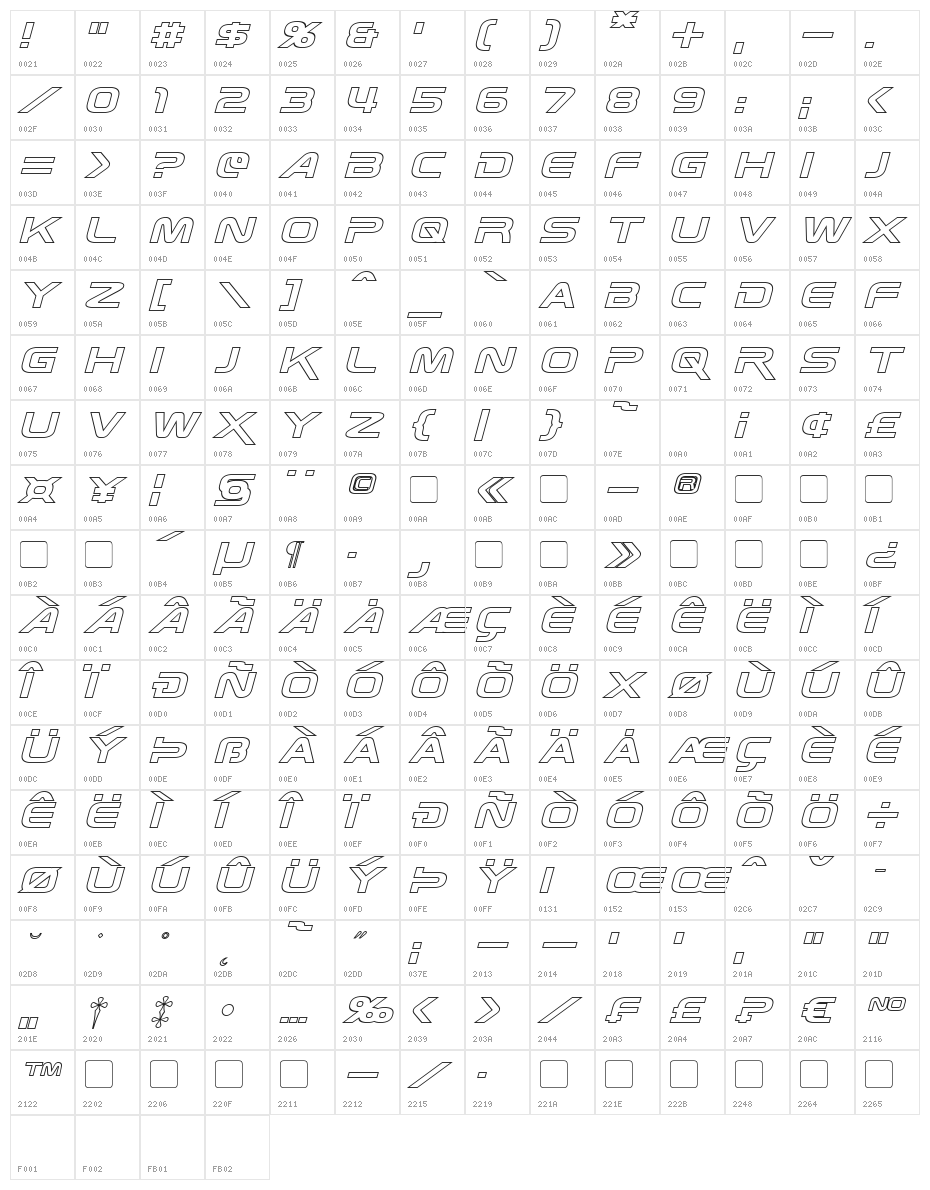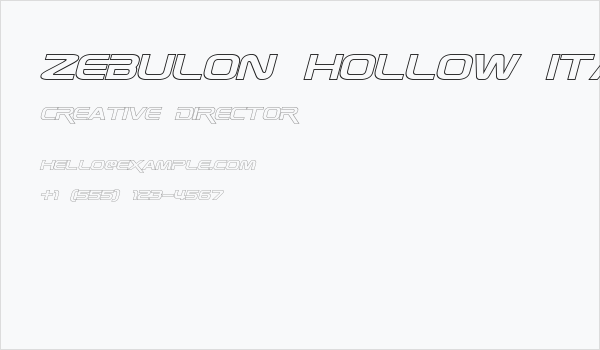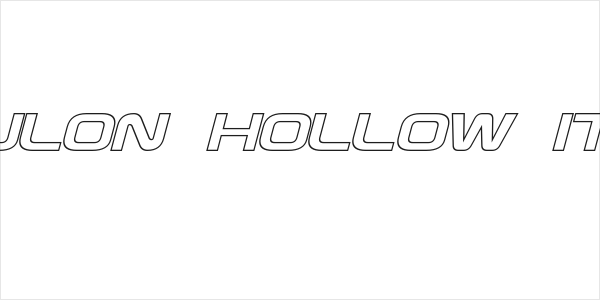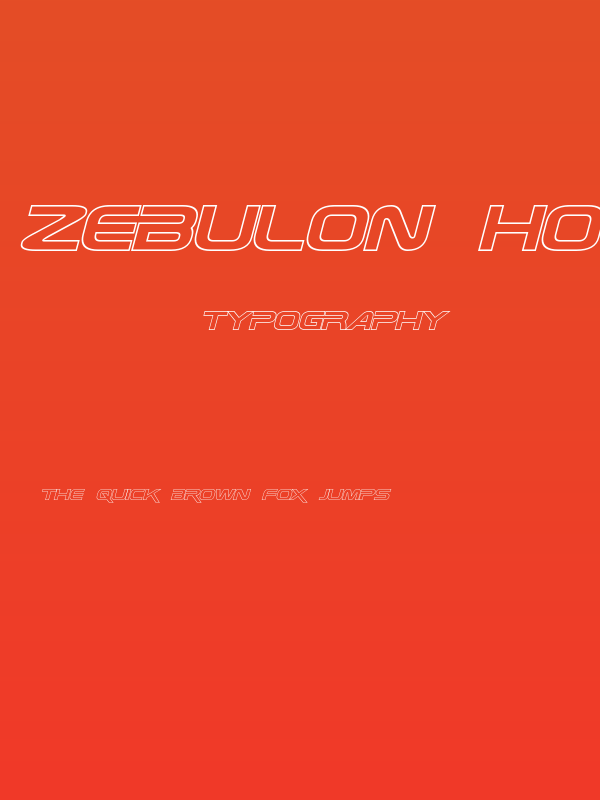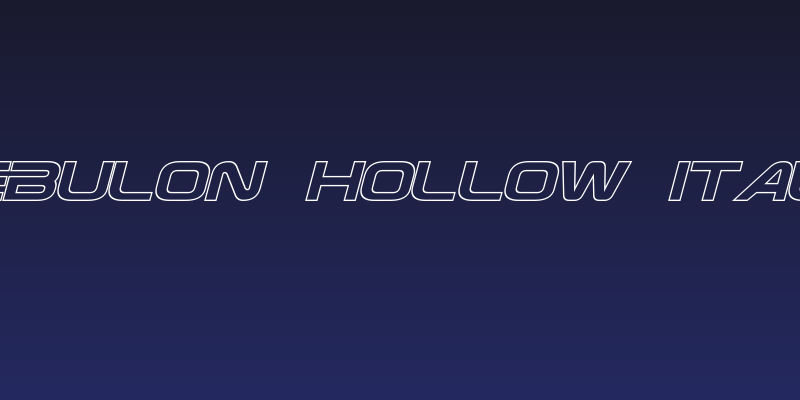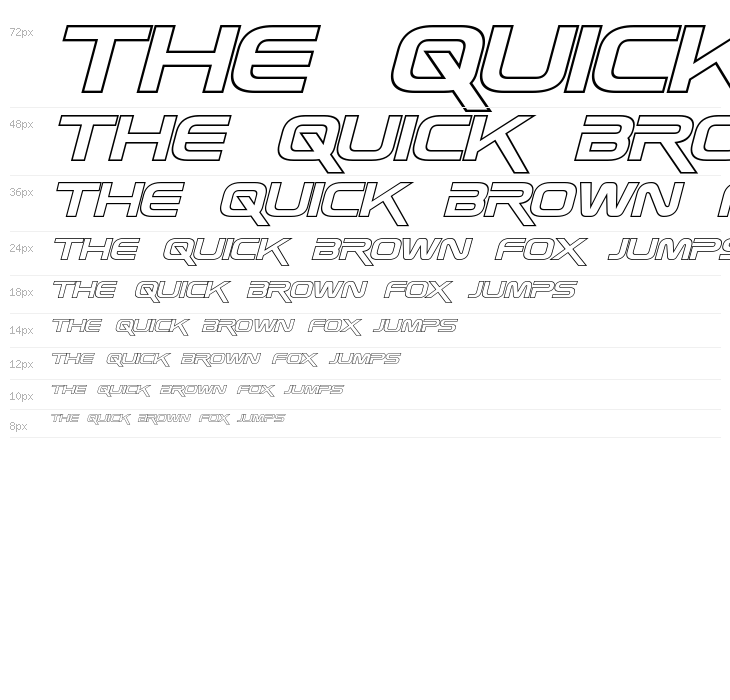
Zebulon Hollow Italic Font
Zebulon Hollow Italic Description
This font features a futuristic and dynamic design with hollow characters that give it a unique, airy appearance. The italicized style adds a sense of motion and speed, making it ideal for projects that require a modern and energetic look. The characters are well-defined with sharp angles and clean lines, contributing to its sleek and contemporary aesthetic. The uppercase and lowercase letters maintain a consistent style, while the numerals and special characters complement the overall design. This font is perfect for creative projects that aim to capture attention with its bold and distinctive style.
| Proposed Projects | Ideal for sci-fi themed designs, technology branding, video game titles, and modern advertising. |